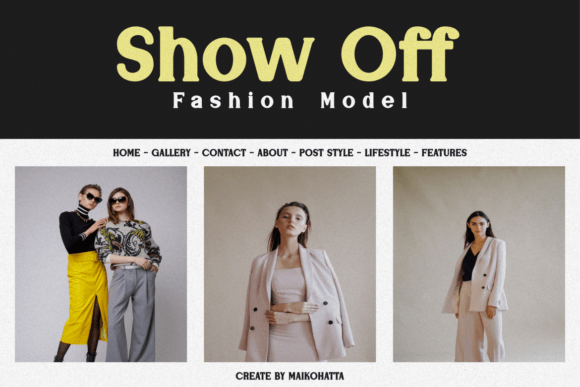
Khofira Font: The Ultimate Display Font for Modern Designs
In the world of typography, fonts play a crucial role in conveying the tone and personality of a brand or design. With the numerous font options available, it can be challenging to find the perfect one that embodies sophistication, versatility, and attention-grabbing appeal. This is where Khofira Font comes into play – a cool and professional display font that has been making waves in the design community.
What is Khofira Font?
Khofira Font is a sleek and sharp display font designed to command attention with its clean lines and modern aesthetic. Its unique letterforms exude a sense of sophistication and versatility, making it an ideal choice for projects that demand a bold and polished typeface.
Whether you’re working on a branding project, advertising campaign, or editorial design, Khofira Font is the perfect addition to your typography arsenal. Its contemporary and professional look ensures that your designs stand out from the crowd and leave a lasting impression on your audience.
Key Features of Khofira Font
- Sleek and Sharp Letterforms: Khofira Font boasts sleek and sharp letterforms that give it a modern and edgy look.
- Clean Lines: The font’s clean lines ensure that your designs look polished and professional.
- Modern Aesthetic: Khofira Font’s modern aesthetic makes it perfect for designs that require a contemporary touch.
- Sophisticated and Versatile: The font’s unique design ensures that it can be used for a wide range of projects, from branding and advertising to editorial design.
What Makes Khofira Font Stand Out?
Khofira Font stands out from other display fonts due to its unique combination of sleekness, sharpness, and sophistication. Its modern aesthetic and clean lines ensure that your designs look contemporary and professional.
Moreover, Khofira Font is designed to be versatile, making it suitable for various projects and design applications. Whether you’re working on a logo, headline, or title, Khofira Font is sure to make a statement.
Use Cases for Khofira Font
Khofira Font is ideal for a wide range of design projects, including:
- Branding: Use Khofira Font to create a bold and memorable brand identity.
- Advertising: Khofira Font is perfect for headlines and titles that require attention-grabbing appeal.
- Editorial Design: Use Khofira Font to add a touch of sophistication to your editorial designs, such as magazines, newspapers, and blogs.
- Packaging: Khofira Font is suitable for packaging designs that require a modern and professional look.
Khofira Font is a powerful display font that can elevate your designs to the next level. Its sleek and sharp letterforms, clean lines, and modern aesthetic make it perfect for projects that demand a bold and polished typeface.
Whether you’re a designer, marketer, or entrepreneur, Khofira Font is an excellent addition to your typography arsenal. With its versatility, sophistication, and attention-grabbing appeal, Khofira Font is sure to make a statement in your designs.
- What is Khofira Font? Khofira Font is a cool and professional display font designed for modern designs.
- What makes Khofira Font unique? Khofira Font’s unique combination of sleekness, sharpness, and sophistication sets it apart from other display fonts.
- What are the use cases for Khofira Font? Khofira Font is ideal for branding, advertising, editorial design, packaging, and more.